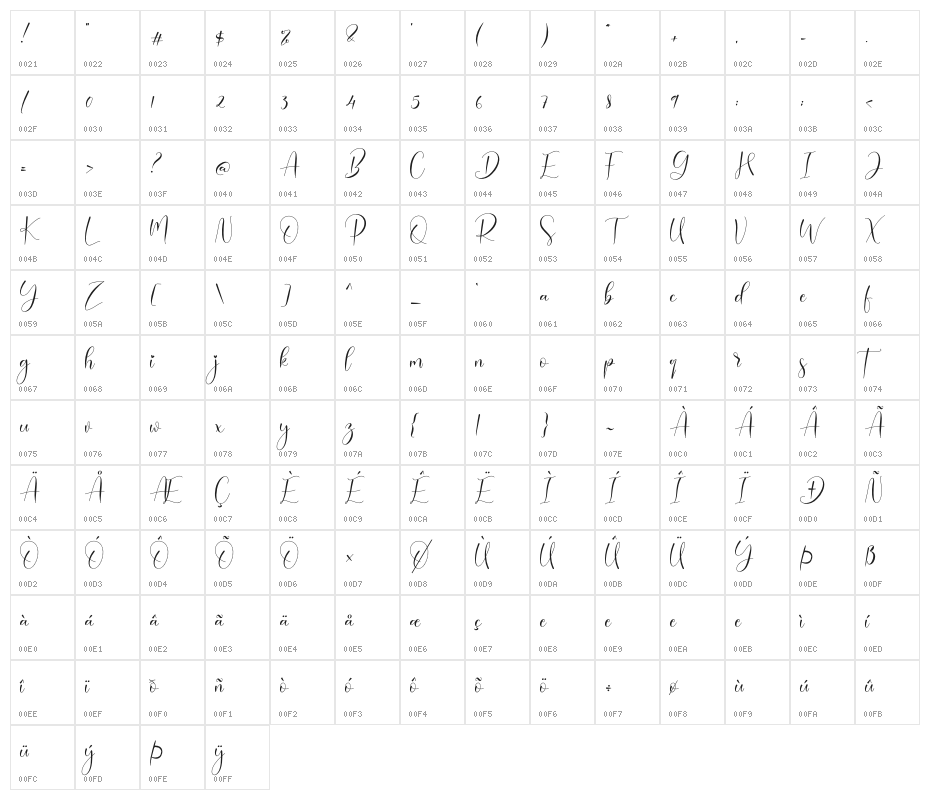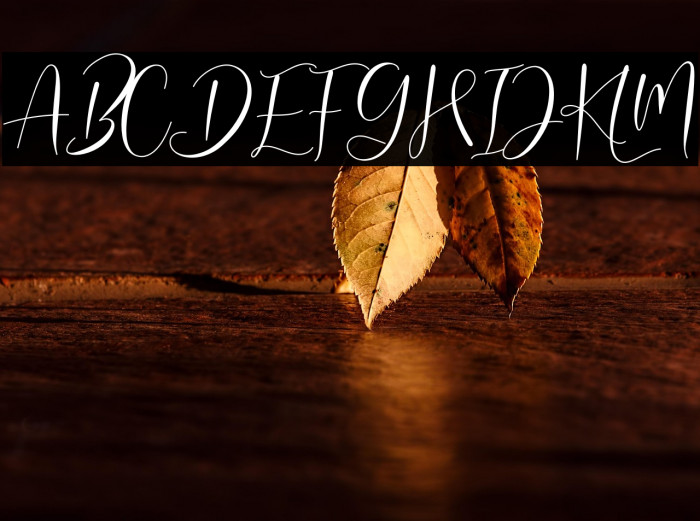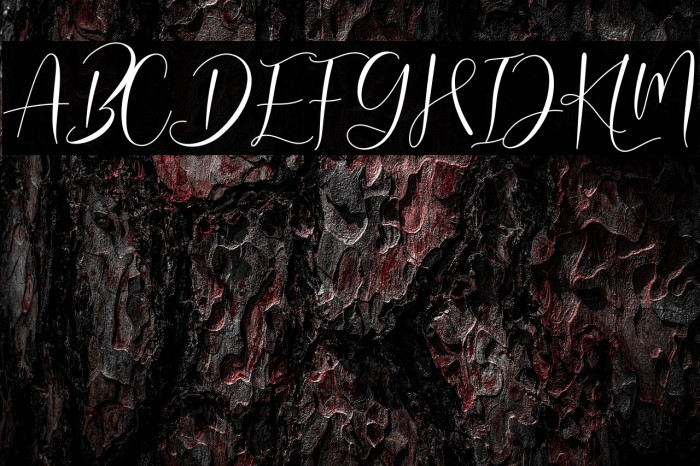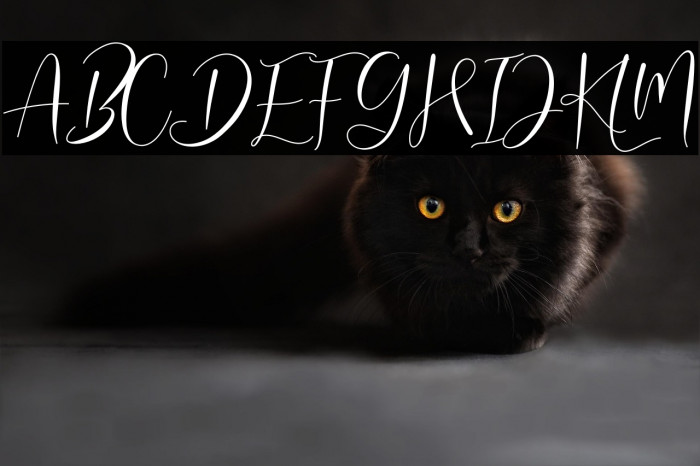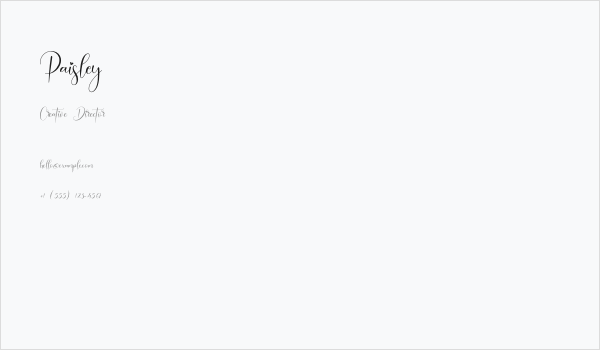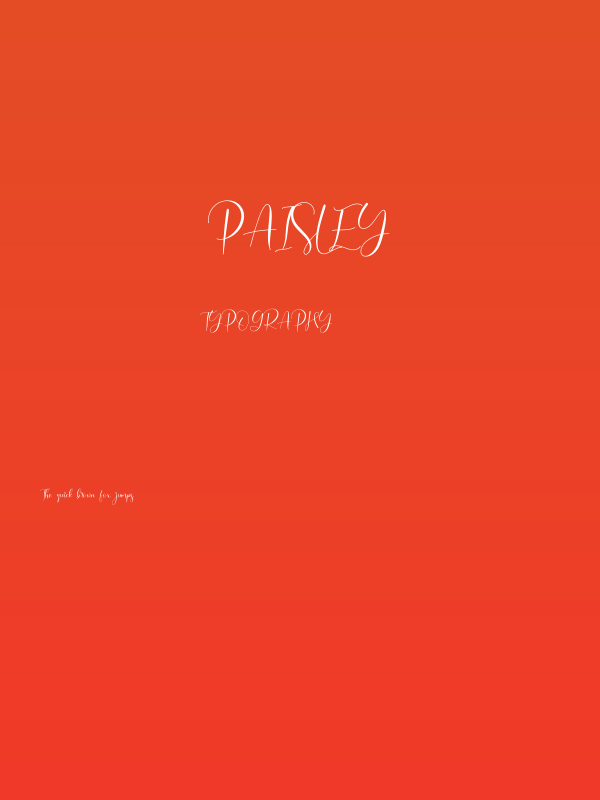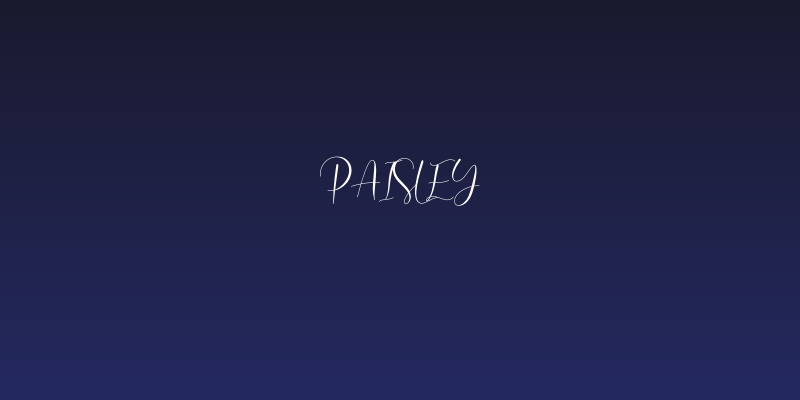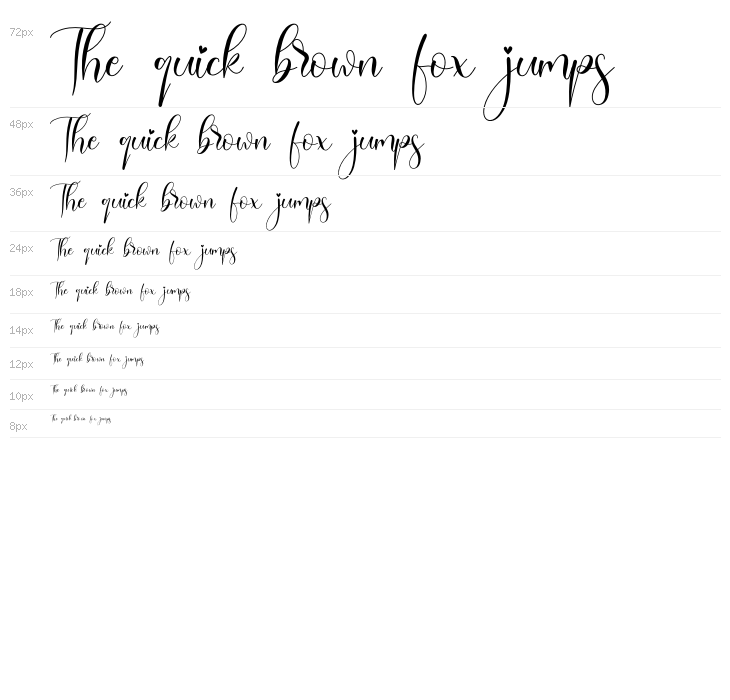
Paisley Font
Paisley Description
This font features an elegant and flowing script style, characterized by its fluid, interconnected letterforms and graceful curves. The uppercase letters are tall and slender, with exaggerated loops and flourishes that add a sense of sophistication and artistry. The lowercase letters maintain a consistent flow, with some letters featuring unique swashes that enhance the overall decorative appeal. Numbers and special characters are designed to complement the script style, maintaining the same level of elegance and fluidity. The font's overall appearance is both stylish and refined, making it suitable for projects that require a touch of elegance and creativity.
| Proposed Projects | Ideal for wedding invitations, elegant branding, greeting cards, and artistic posters. |